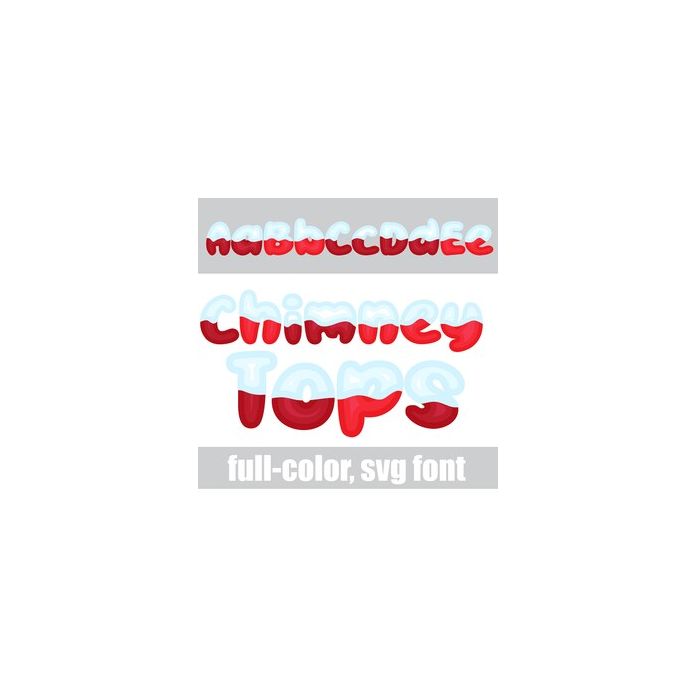
This full-color font features red lettering and snow caps. There is an alt case w/ additional colors you can access through your system or Silhouette's glyph map.